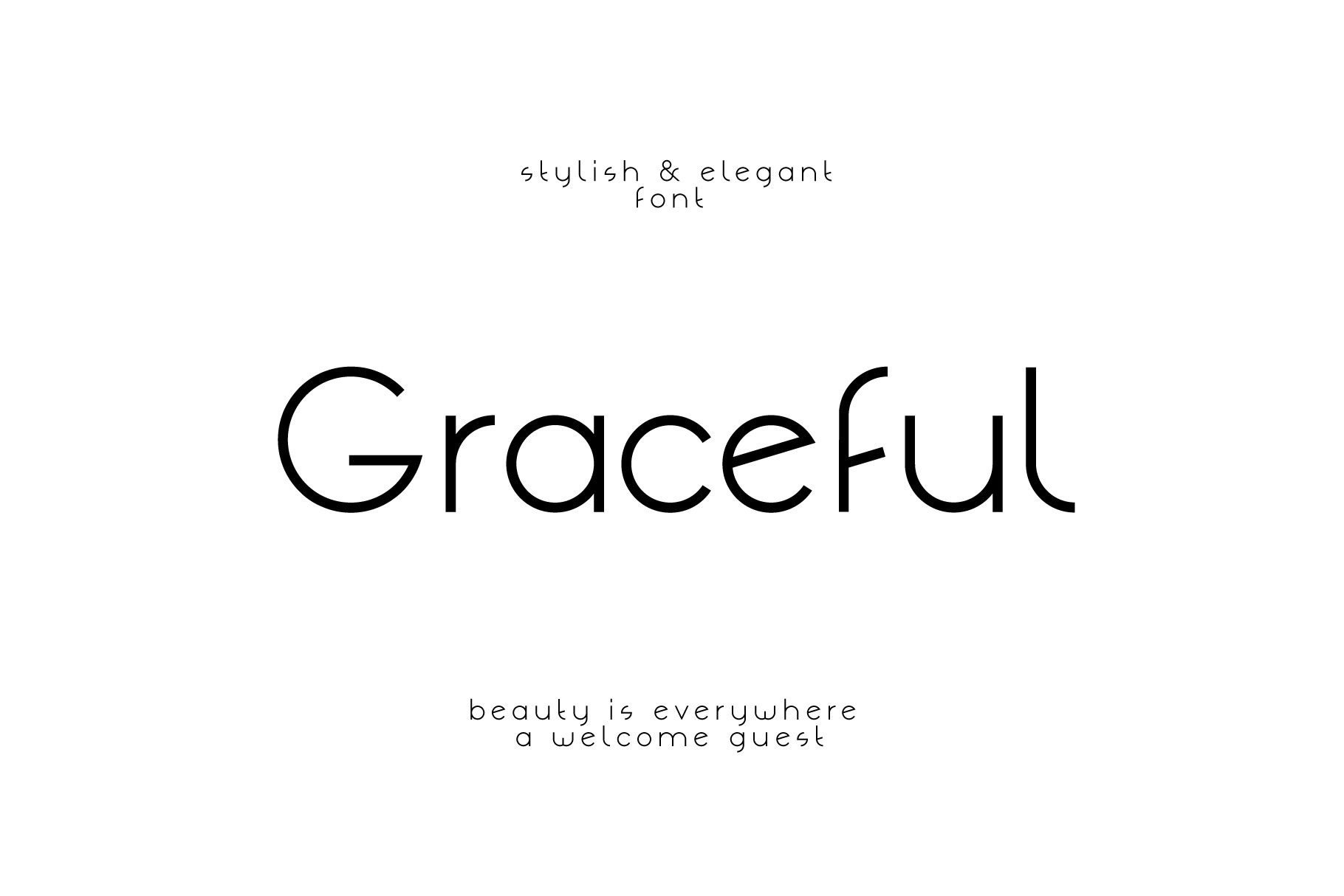
Graceful Font
Beauty is everywhere a welcome guest! The stylish & elegant font that was created inspired by the graceful beauty of nature and the movement of life. Sans Serif Graceful is the best way to create a delicate design, whether it's a business card, a magazine cover or a web site.
- Uppercase Character
- Lowercase Character
- Latin Letters
- Punctuations